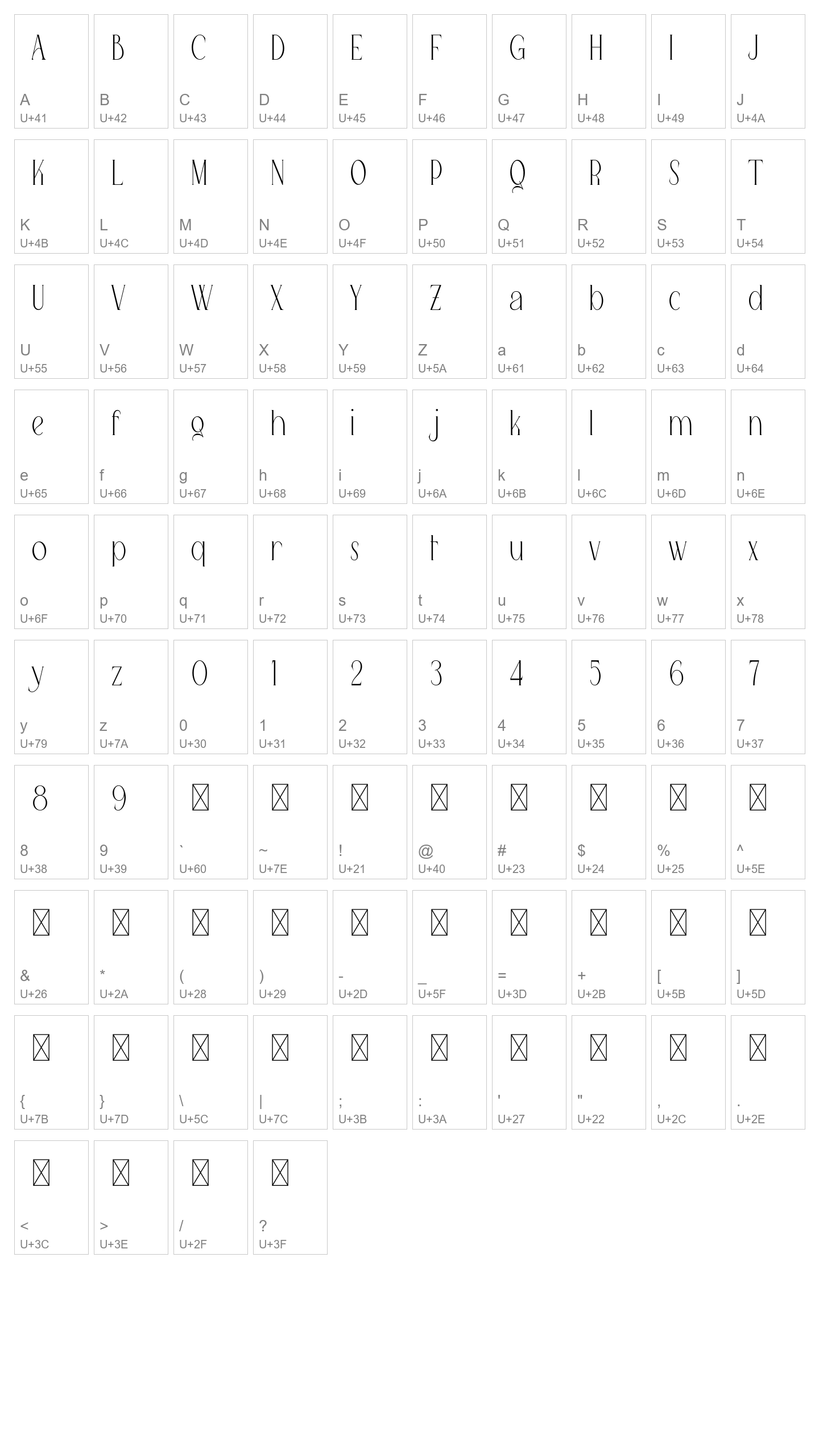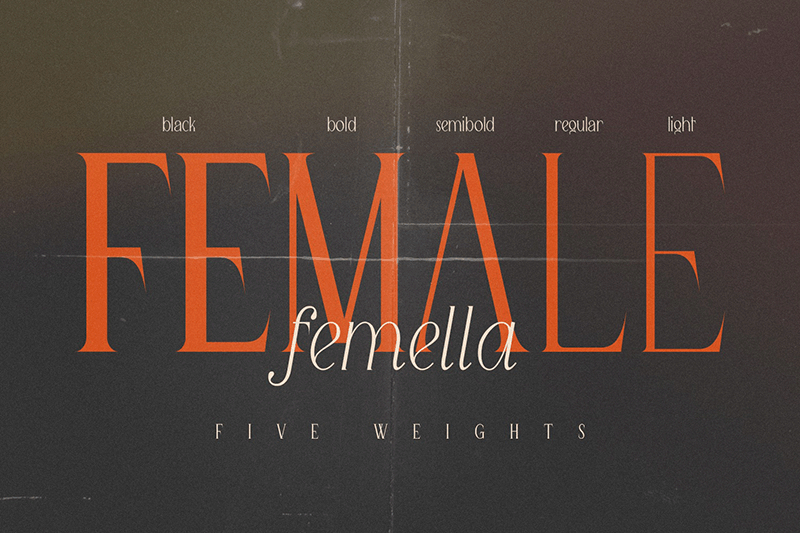
Queen Serif
Author: FactoryType
Discover the Queen Serif family, a FREE stylish serif font designed to give your projects an elegant look! With its modern design and vintage flair, this font is perfect for your next project. Get your FREE download today!
- 5 Weights
- 2 Styles (Regular and Italic)
- Basic Latin A-Z and a-z
- Numerals & Punctuation
- Stylistic Ligatures and Alternate glyps
- Multilingual Support for ä ö ü Ä Ö Ü